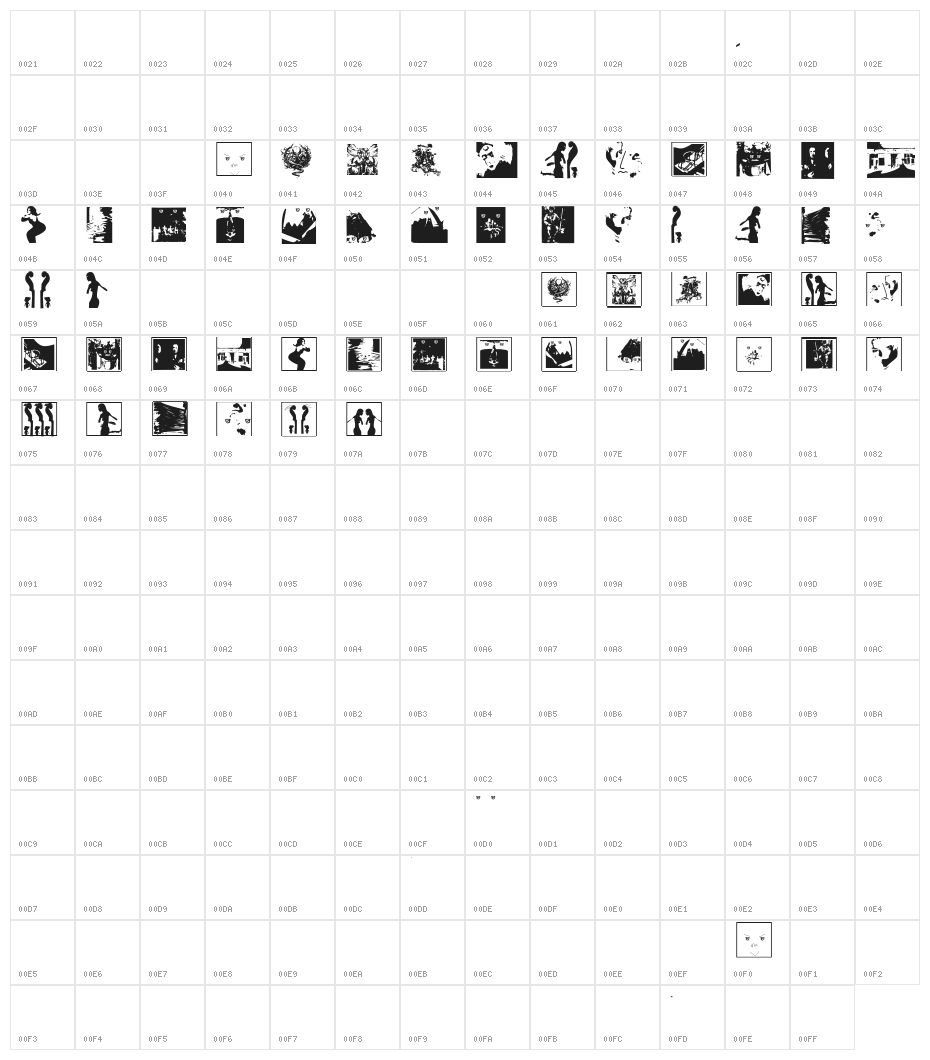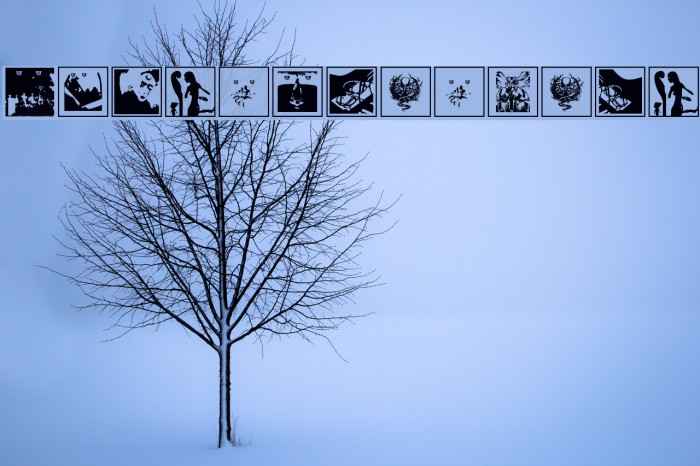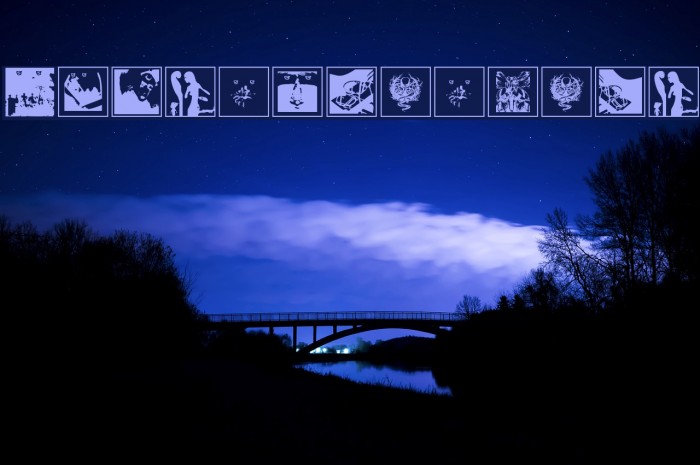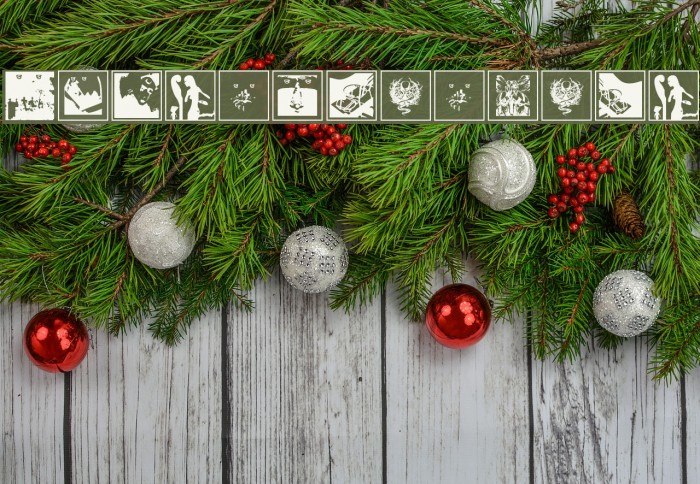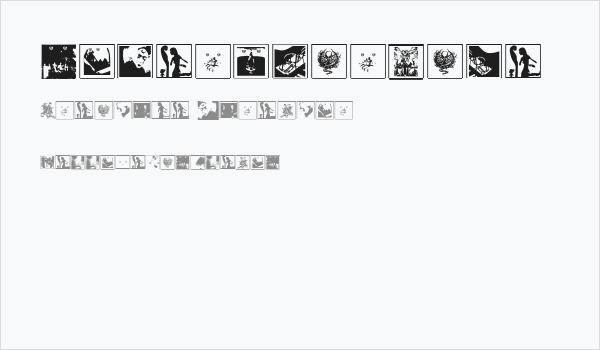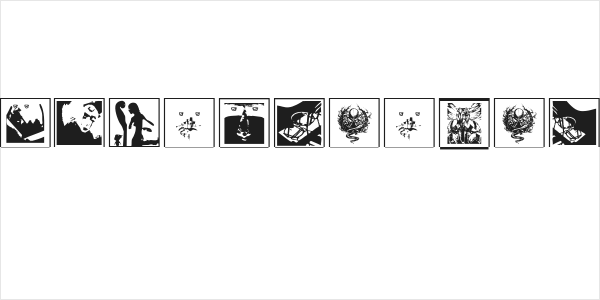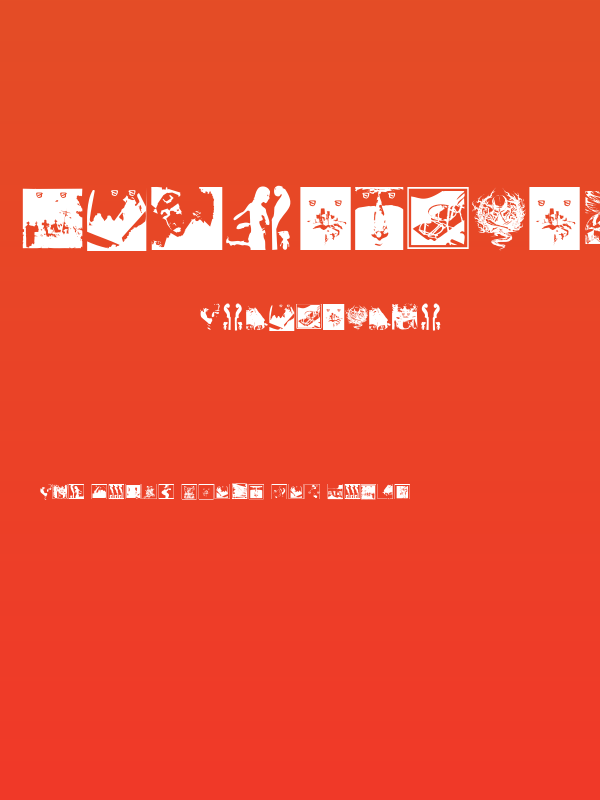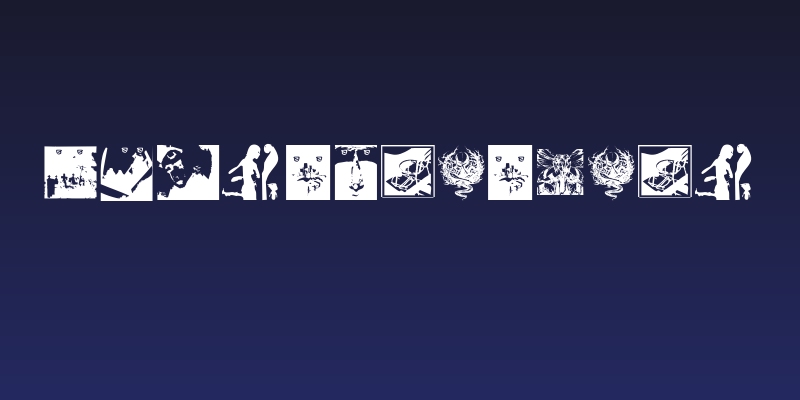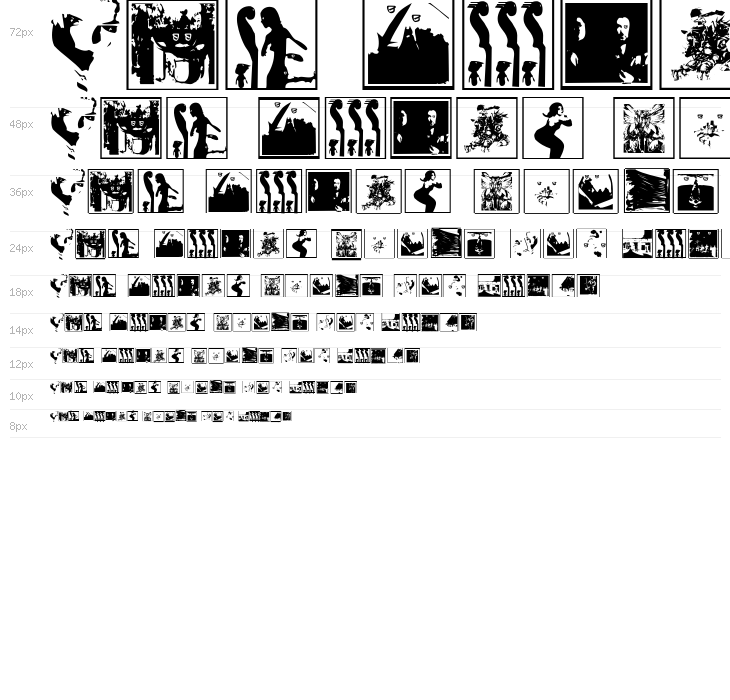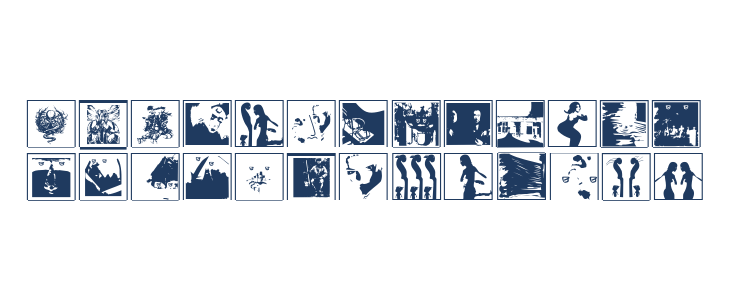
ModernGarbage Font
A highly decorative and illustrative font composed of complex, abstract, and surreal black-and-white images for each character, resembling graphic art or collage rather than traditional letterforms.
| Overall Style | Decorative, Abstract, Surreal |
| Use Case | Logos, Posters, Artistic projects, Headlines |
| Proposed Projects | Album covers, avant-garde posters, experimental zines, art installations, alternative branding. |